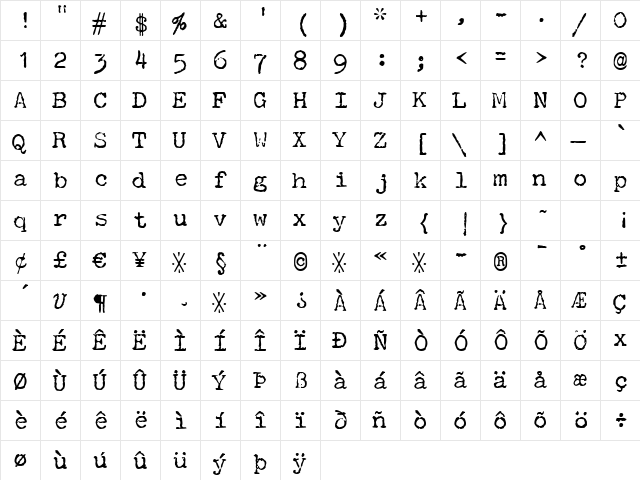
P22 Typewriter Regular
| Foundry | P22 type foundry / International House of Fonts |
| Designer | Richard Kegler |
Design Context for P22 Typewriter Typeface
P22 Typewriter brings the precise, column-aligned rhythm of monospaced typography to designs that value technical clarity and systematic order.